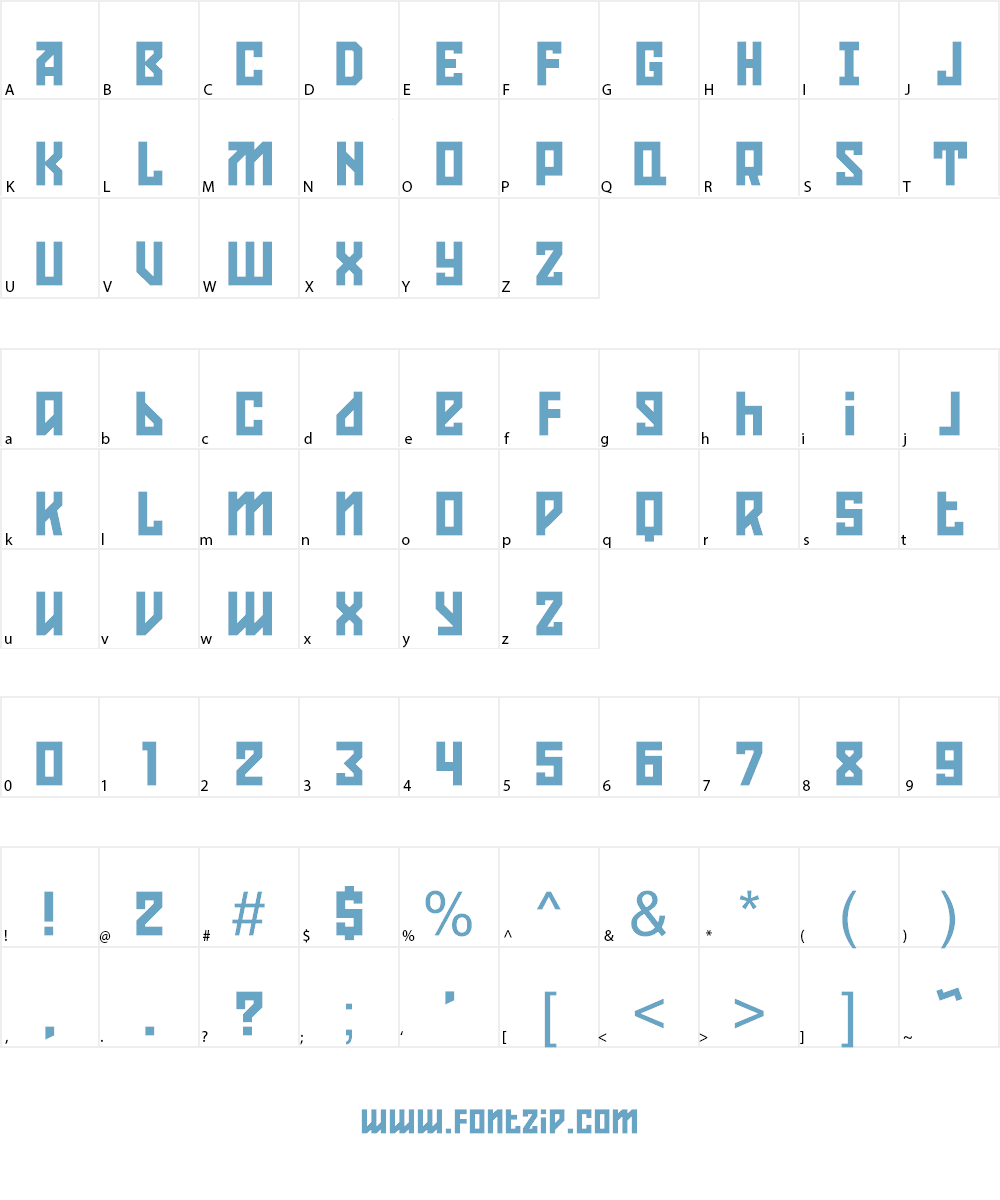
Konstruktor has been developed to be a narrow cousin of my other contructivist typeface of mine, Red October. It annoyed me to see people squishing Red October horizontally in order to achieve narrower look - that's why I created a complementing condensed typeface. I've added a number of alternates for some of the glyphs.